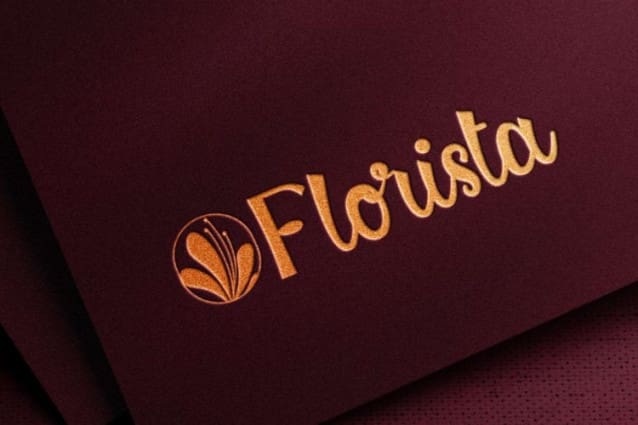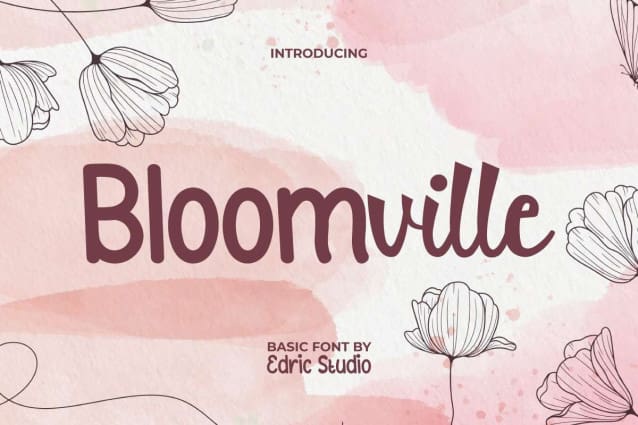
Bloomville Font
Bloomville Font is a cute kids handwriting and casual calligraphic font resulting in these two looks in one font. It will add a stylish touch to whatever your design is, including invitation flyer, apps, billboard, blogs, brochure, cover, flyer, header, logos, packaging design, poster, price label, quotes, screen print, signage, stationery, sticker, title, website, etc.
Bloomville Font comes with a full set of Uppercase and Lowercase letters, Number, Punctuation, Symbol, and Ligature. These modern letters can exude a subtle sense of beauty and sophistication. Ideal for adding a non-boring touch to whatever the industry, such as, such as ads, boutique, café, content creator, craft, fashion, florist, graphic design, hotel, printing, publishing, restaurant, writer, more.